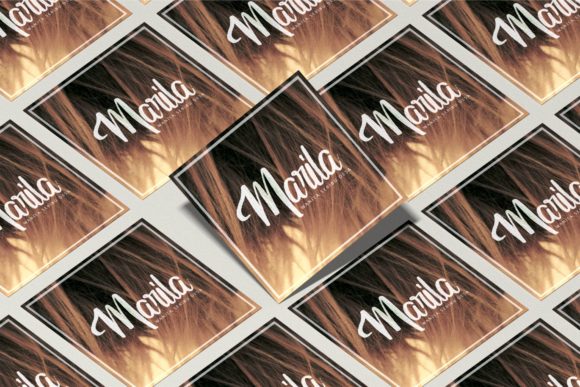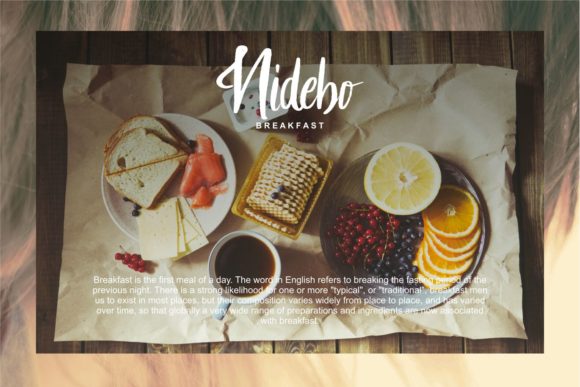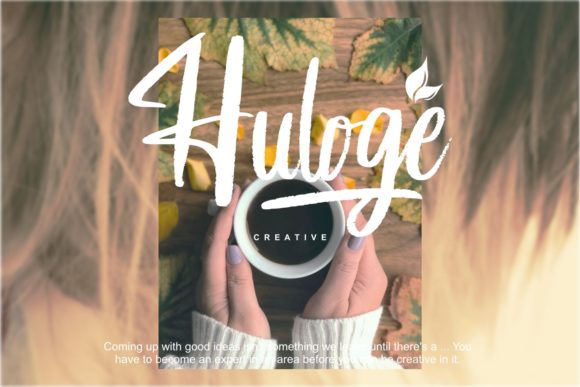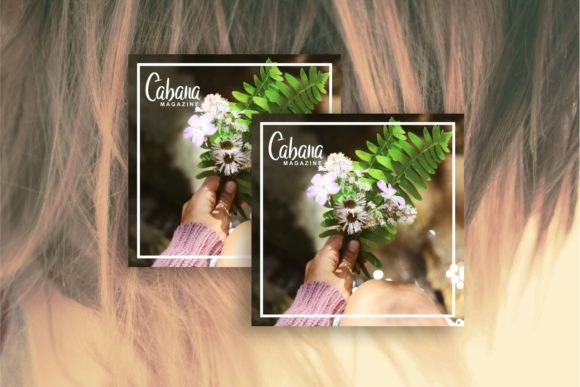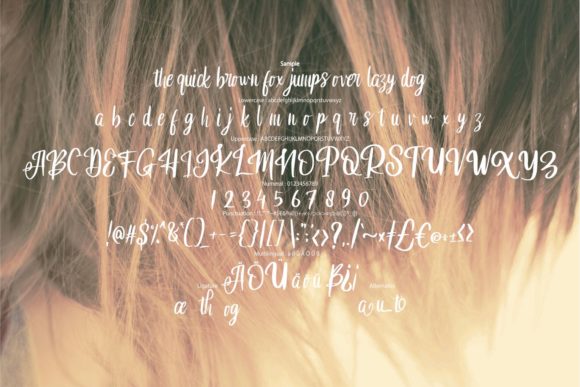
Introducing Adilea Font: The Quirky and Authentic Handwritten Font
Are you tired of using the same old fonts for your creative projects? Look no further than Adilea Font, a unique and enchanting handwritten font that embodies fun, quirkiness, and authenticity. With Adilea, you can turn any creative idea into a true standout that captures the attention of your audience.
The Story Behind Adilea Font
Adilea Font is a carefully crafted font that is designed to bring a touch of personality to your designs. Its quirky and playful style makes it perfect for creative projects that require a dash of whimsy and fun. Whether you’re a designer, crafter, or DIY enthusiast, Adilea Font is the perfect choice for anyone looking to add a unique touch to their work.
What Makes Adilea Font Special?
So, what sets Adilea Font apart from other fonts? Here are just a few features that make it special:
- Handwritten style: Adilea Font is a genuine handwritten font that is full of character and personality. Its irregularities and imperfections give it a warm and organic feel that is perfect for creative projects.
- Quirky and playful: Adilea Font is designed to be fun and playful. Its quirky style makes it perfect for projects that require a dash of whimsy and humor.
- Authentic: Adilea Font is a genuine and authentic font that is free from pretension. Its unique style makes it perfect for designers and crafters who want to add a personal touch to their work.
- Versatile: Adilea Font is a versatile font that can be used for a wide range of creative projects, from handmade crafts to digital designs.
Using Adilea Font in Your Creative Projects
Adilea Font is perfect for a wide range of creative projects, including:
- Handmade crafts: Adilea Font is perfect for handmade crafts, such as card making, scrapbooking, and journaling.
- Digital designs: Adilea Font can be used for digital designs, such as social media graphics, blog posts, and website headers.
- Sign making: Adilea Font is perfect for sign making, whether you’re creating a sign for a business or a personal project.
- Paper crafting: Adilea Font can be used for paper crafting projects, such as origami, paper cutting, and paper quilling.
Tips for Getting the Most Out of Adilea Font
Here are a few tips for getting the most out of Adilea Font:
- Use it sparingly: Adilea Font is a bold and playful font, so use it sparingly to add emphasis to your designs.
- Experiment with colors: Adilea Font looks great in a variety of colors, so experiment with different colors to find the one that works best for your project.
- Pair it with other fonts: Adilea Font can be paired with other fonts to create a unique and interesting look.
Adilea Font is a unique and enchanting handwritten font that embodies fun, quirkiness, and authenticity. With its quirky and playful style, it’s perfect for creative projects that require a dash of whimsy and humor. Whether you’re a designer, crafter, or DIY enthusiast, Adilea Font is the perfect choice for anyone looking to add a personal touch to their work.